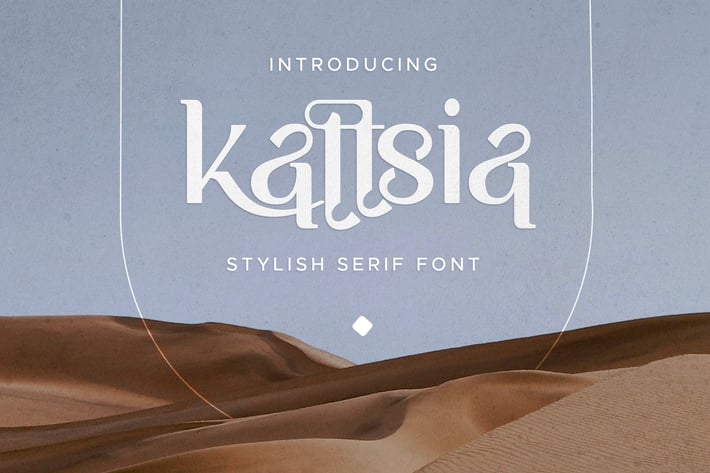
Kattsia Stylish Serif Font
Display work is not only about color, illustration, image, or photograph, it also includes typography in which you put the text that needs font. If you need something fresh, stylish and artistic for your display work, Kattsia, a stylish serif font, will help you create amazing work. The shape of this font is very unique Middle East font-like makes it perfect for logo, book title, business card, brand, trademark, product packaging, quote, creative text display, or a stylish text overlay to any background image. This font also is best suited for semi-formal text.
Every package of this font consists of a full set of alphabets from A to Z in upper and lower case mode, with some alternate characters and ligatures that will make your creative work looked more stunning and eye-catching. This package also includes complete punctuation and numbering and supports multilingual use with more than 300 ligatures that won’t limit your creativity.
- 300+ ligatures
- Alternate fonts
- Upper and lower case
- Regular and Italic style